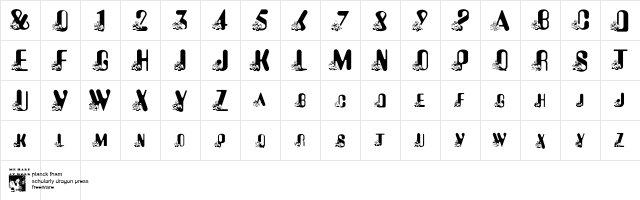
pf_walter_wolf Regular
Design Context for pf_walter_wolf Typeface
pf_walter_wolf is a composed and adaptable typeface that performs quietly and consistently across a wide range of design contexts.